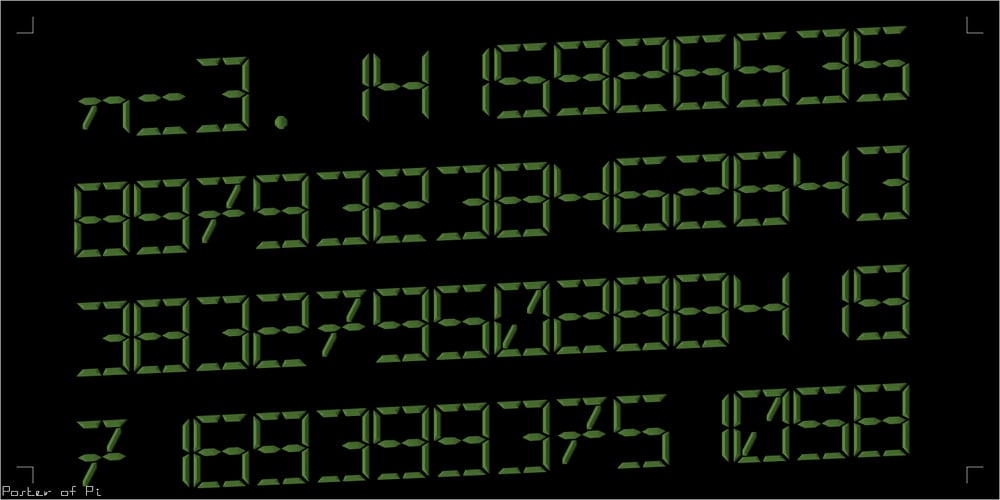
Digital-LED Font Family was designed by Bryndan Meyerholt and published by B1 Industries. Digital-LED contains 4 styles and family package options. I wanted to create a custom LED font, so I did, making sure to check for errors… It is useful for many things. (Electronically and in Real Life) (e.g. Documents, coding, signage, games, LED signs, calculators, etc.)